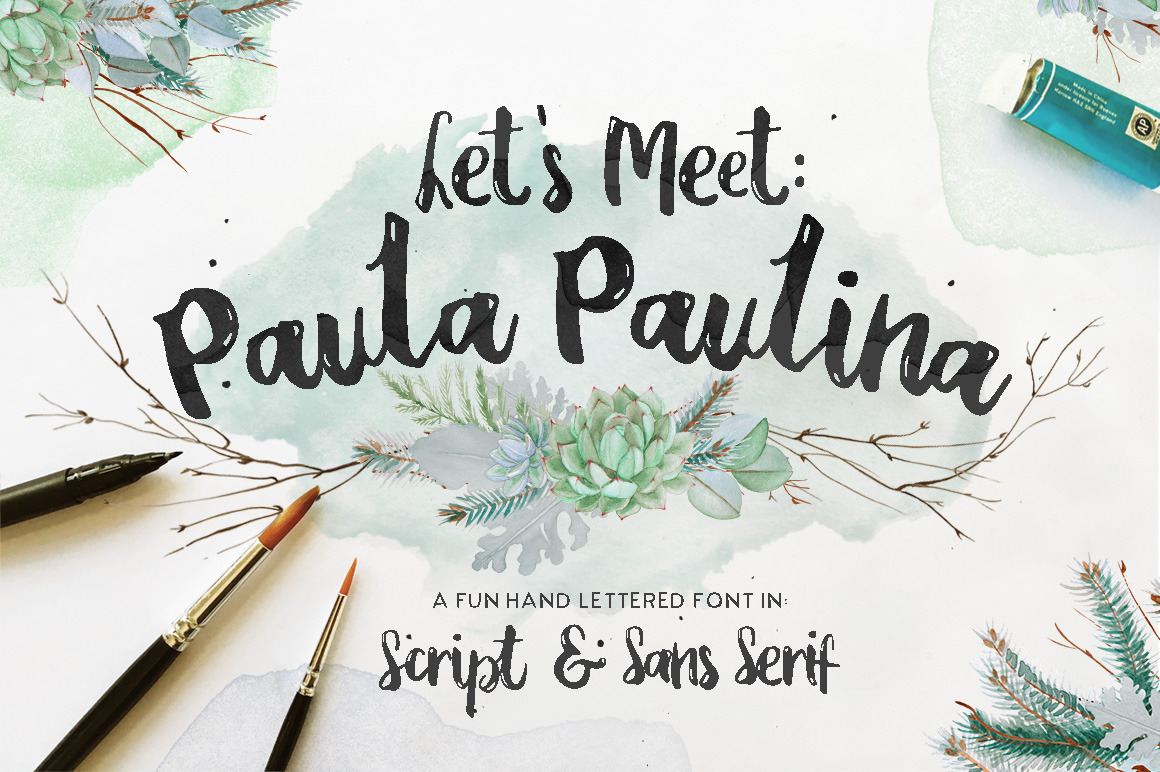
Paula Paulina Script Font
Paula Paulina Script Font is perfect for wedding invitations, greeting cards, branding materials, social media graphics, book covers, magazine layouts, packaging design, and luxury product advertisements.
What makes Paula Paulina Script Font exciting is its elegant handwritten appearance that combines modern calligraphy with vintage charm. The flowing letterforms create a sophisticated and romantic aesthetic that instantly elevates any design project. Its carefully crafted curves and natural stroke variations give text a personal, authentic feel that resonates with audiences seeking premium quality typography.
The Paula Paulina Script Font family includes regular weight with uppercase and lowercase letters, numbers, punctuation marks, and special characters. Some versions may include alternates, ligatures, and swashes that provide additional creative flexibility for designers working on high-end projects.
This beautiful script typeface stands out in the competitive font market due to its versatility and professional finish. Whether you're designing wedding stationery, creating brand identity materials, or developing marketing campaigns, Paula Paulina Script Font Free Download delivers exceptional results that capture attention and communicate elegance.
The organic flow of Paula Paulina Script Font makes it ideal for projects requiring a personal touch. Its readability remains excellent even at smaller sizes, making it suitable for both display and text applications. The font's character set supports multiple languages, ensuring broad usability across international design projects.
Designers appreciate how Paula Paulina Script Font seamlessly blends traditional calligraphy techniques with contemporary design trends. Its balanced spacing and consistent baseline create professional-looking layouts while maintaining the warmth and personality that script fonts are known for.
The artistic quality of this typeface makes it particularly valuable for luxury brands, boutique businesses, and creative professionals who want to establish a sophisticated visual identity. Paula Paulina Script Font Free Download represents an excellent investment for any designer's font library, offering endless possibilities for creating memorable and impactful designs.